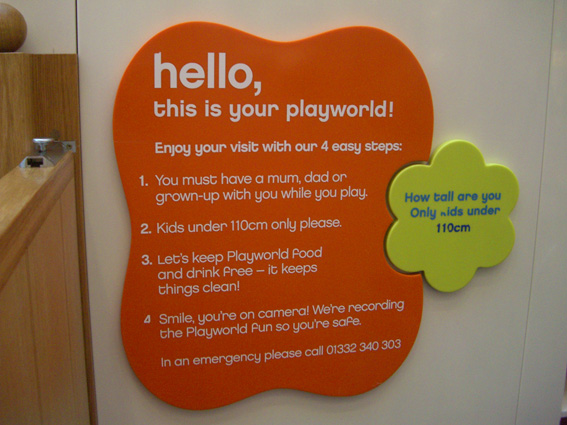
Anybody have any ideas on this one?
It looks like it could be so many things, but I'm trying to nail it.
This one?
This looks to have been messed about with a bit (the 'f' and 'r' at least) - the bite on the top of the 'h' I'm not bothered about - I can spend the time adjusting a typeface to suit but would prefer if anyone has reference to an already existing version.
not sure what this is, got very close to it though..
cant seem to find this one either?
on this one, its the price in red and in black.. not sure if its the same?
This looks to have been messed about with a bit (the 'f' and 'r' at least) - the bite on the top of the 'h' I'm not bothered about - I can spend the time adjusting a typeface to suit but would prefer if anyone has reference to an already existing version.
If it is played around with, then I think it might be Chalet New York 1980.
Help Please...trying to find this font...Anyone?????
It's just your run-of-the-mill blackletter with a grunge twist.
When I need to review fonts I go to myfonts.com. You should find something close there. And if it doesn't come with the grunge built in, you can always add that yourself.
For some reason this font looks very familiar, but being that's distorted I can't figure which one it is. Help will be much appreciated (only for the slanted word Seacorp).
It's Verdana, and it looks like it's been digitally modified to have that slant.
For some reason this font looks very familiar, but being that's distorted I can't figure which one it is. Help will be much appreciated (only for the slanted word Seacorp).